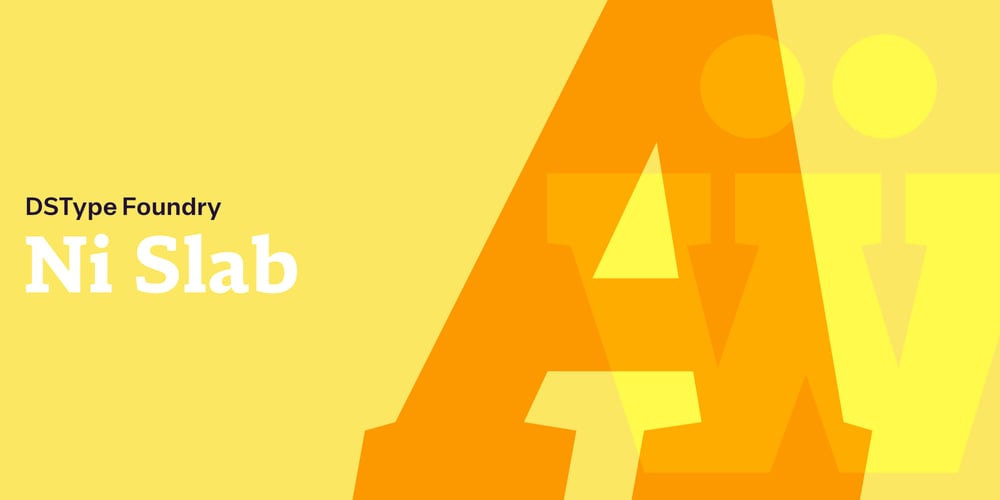
Ni Slab Font Family was designed by Dino dos Santos and published by Monotype. Ni Slab contains 15 styles and family package options. Ni is a kind of typographic love letter, revealed in three distinct, yet close, type formulas. Ni Serif is a contemporary serif typeface with slight diagonal modulation, amazingly legible, and with a very steady rhythm that allows a wonderful performance, especially in long passages of text. Ni Sans closely match the design characteristics and proportions of the serif counterpart. Ni Sans undeniably shows the strong calligraphic influence that comes from Ni Serif, resulting in a very comfortable humanistic typeface, suited both for print and digital environments. Ni Slab is not a simple Sans with serifs attached. Despite the thick and strong serifs, Ni Slab is a gentle mixture of the DNA of the Serif and Sans counterpart and does not intend to reflect any mechanic approach.